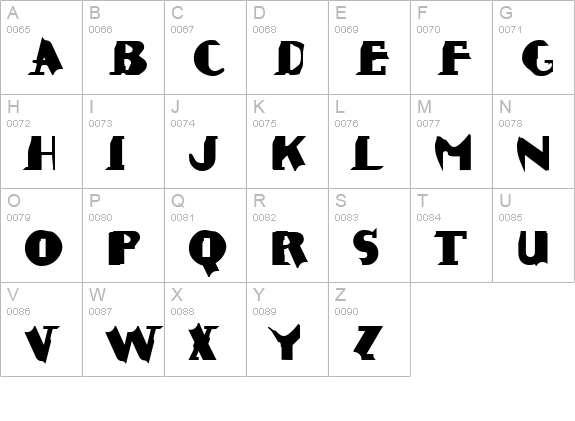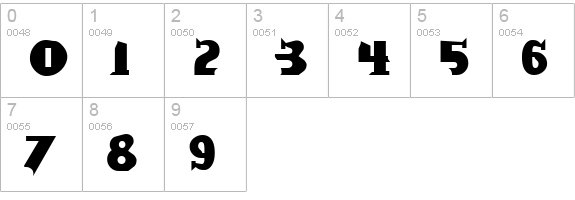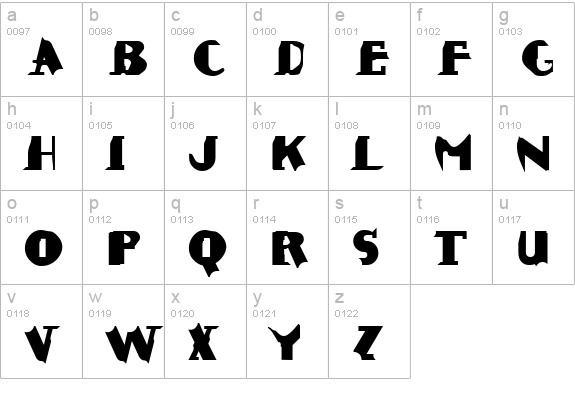
CausticBiomorph-ExtraBold Font Details
CausticBiomorph-ExtraBold is an extra-heavy, attention-grabbing variant in the CausticBiomorph typeface family \xE2\x80\x94 well suited to high-impact headlines, posters, and bold branding.
CausticBiomorph-ExtraBold is a striking and bold display font that exudes a strong and dynamic presence. Its sharp angles and intricate details give it a futuristic and edgy feel, making it perfect for headlines, posters, and branding projects that require a bold statement. The unique biomorphic shapes and caustic edges of this font add a touch of avant-garde style to any design. What sets CausticBiomorph-ExtraBold apart is that it is not only visually impactful but also versatile and easy to read, making it suitable for a wide range of design applications. Whether you're looking to create a modern and innovative look or add a touch of boldness to your projects, this font is sure to make a lasting impression. Best of all, CausticBiomorph-ExtraBold is available for free download at FontsMarket.com, allowing you to access this high-quality font without any cost. Don't miss out on the opportunity to enhance your designs with the bold and captivating CausticBiomorph-ExtraBold font today!